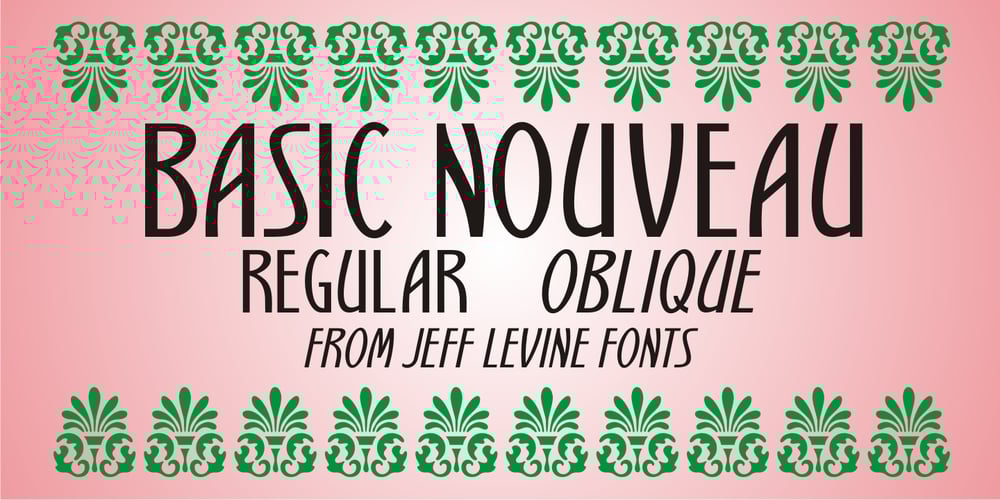
Basic Nouveau JNL Font Family was designed by Jeff Levine and published by Jeff Levine. Basic Nouveau JNL contains 2 styles and family package options. The 1913 sheet music for “You’ll Be Welcome When You Get Back Home” had its title hand lettered in a simple, yet attractive Art Nouveau sans serif design which has been preserved as digital type. Basic Nouveau JNL is available in both regular and oblique versions.